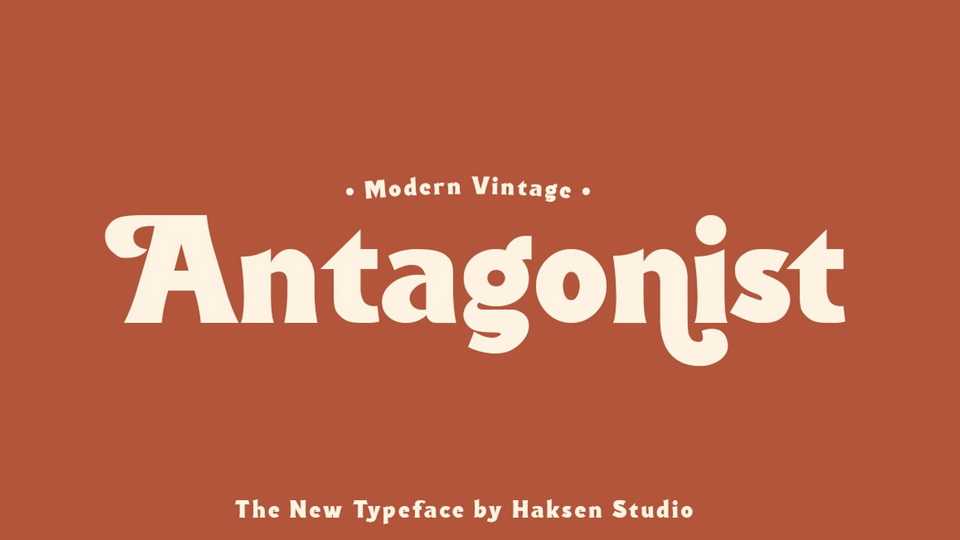
Download Antagonist font, a bold elegant modern vintage serif typeface with nice balanced letterforms. Its wide range of alternates allow versatile design options and works.
Designer: Haksen Studio